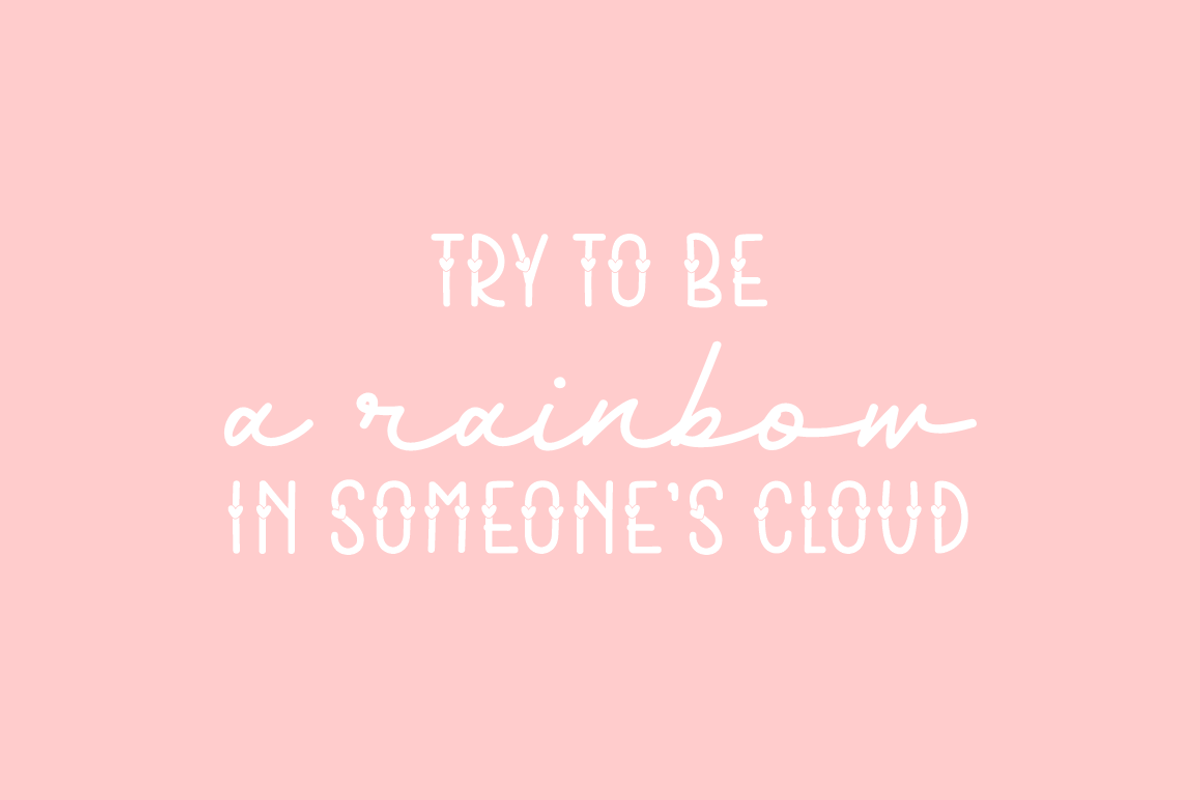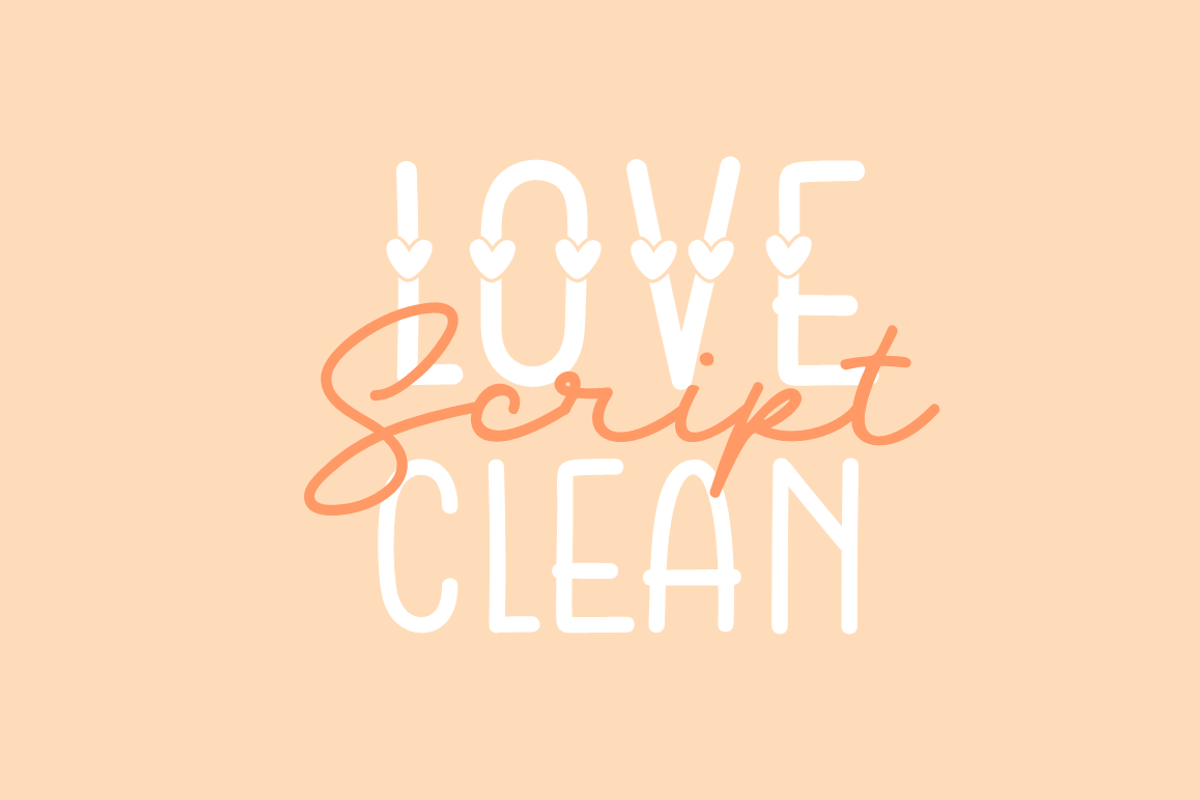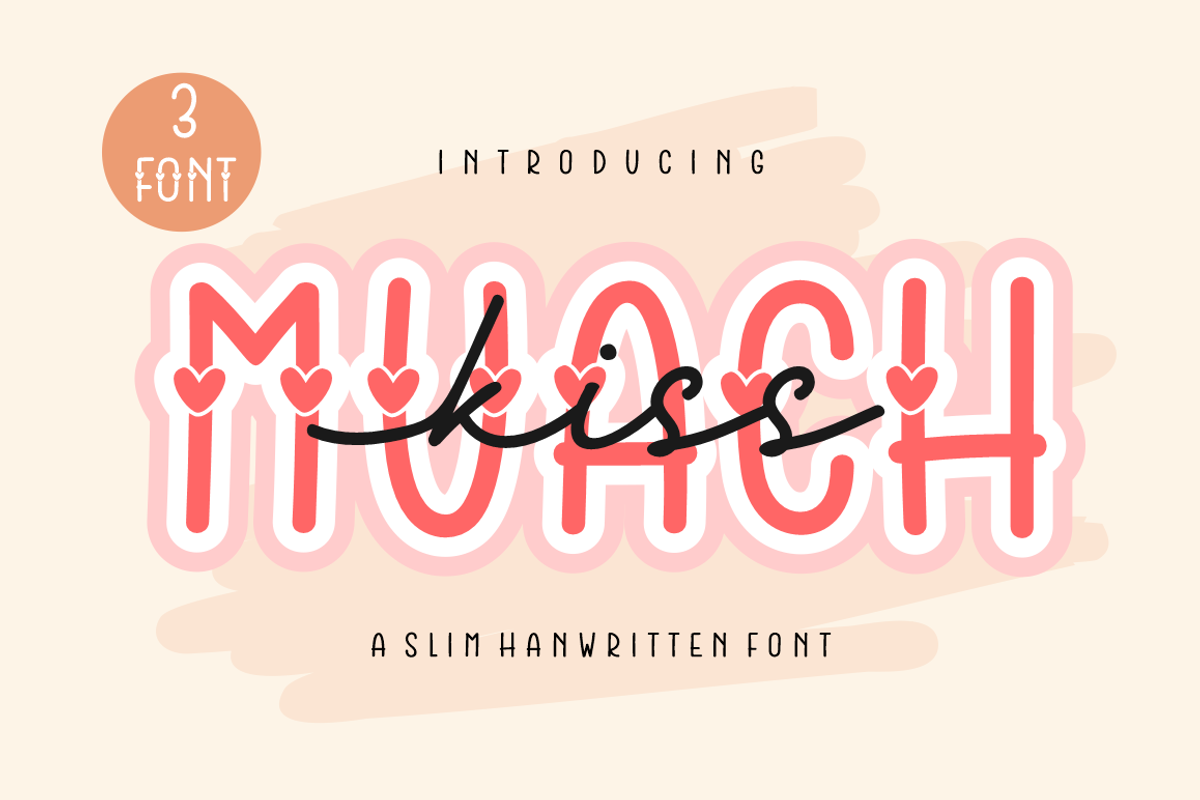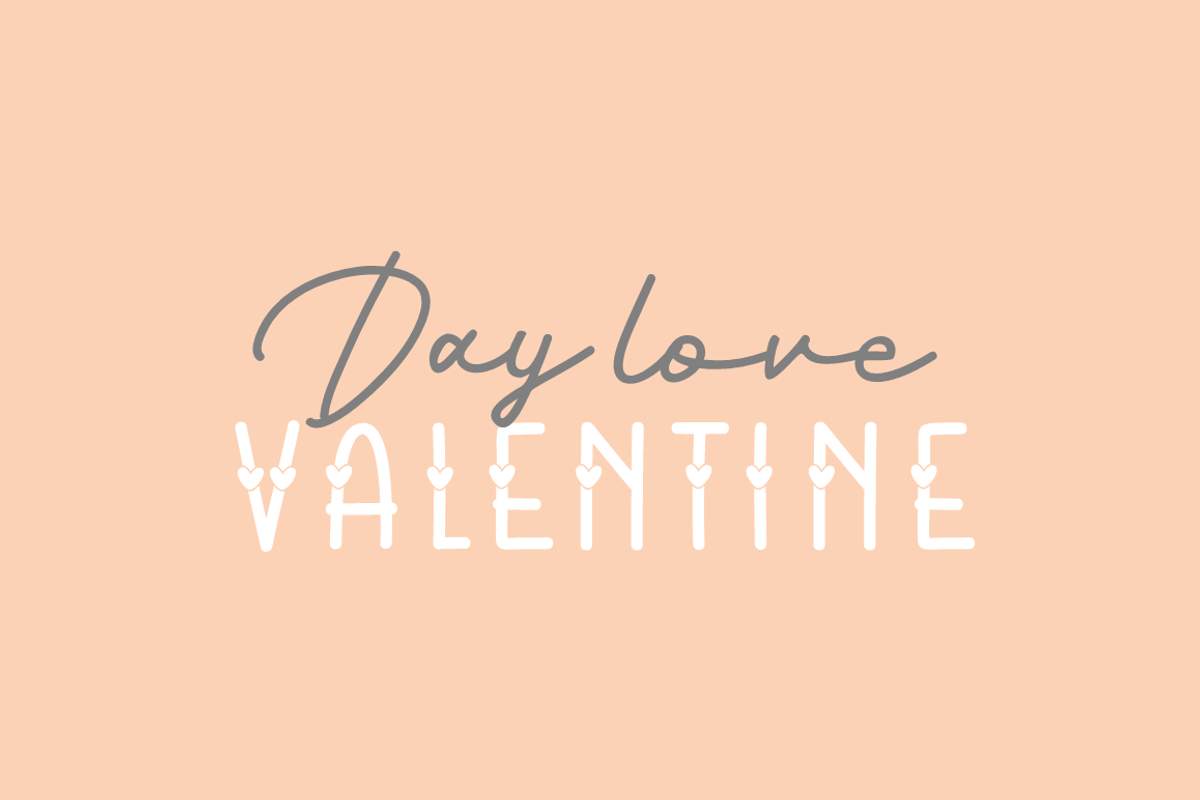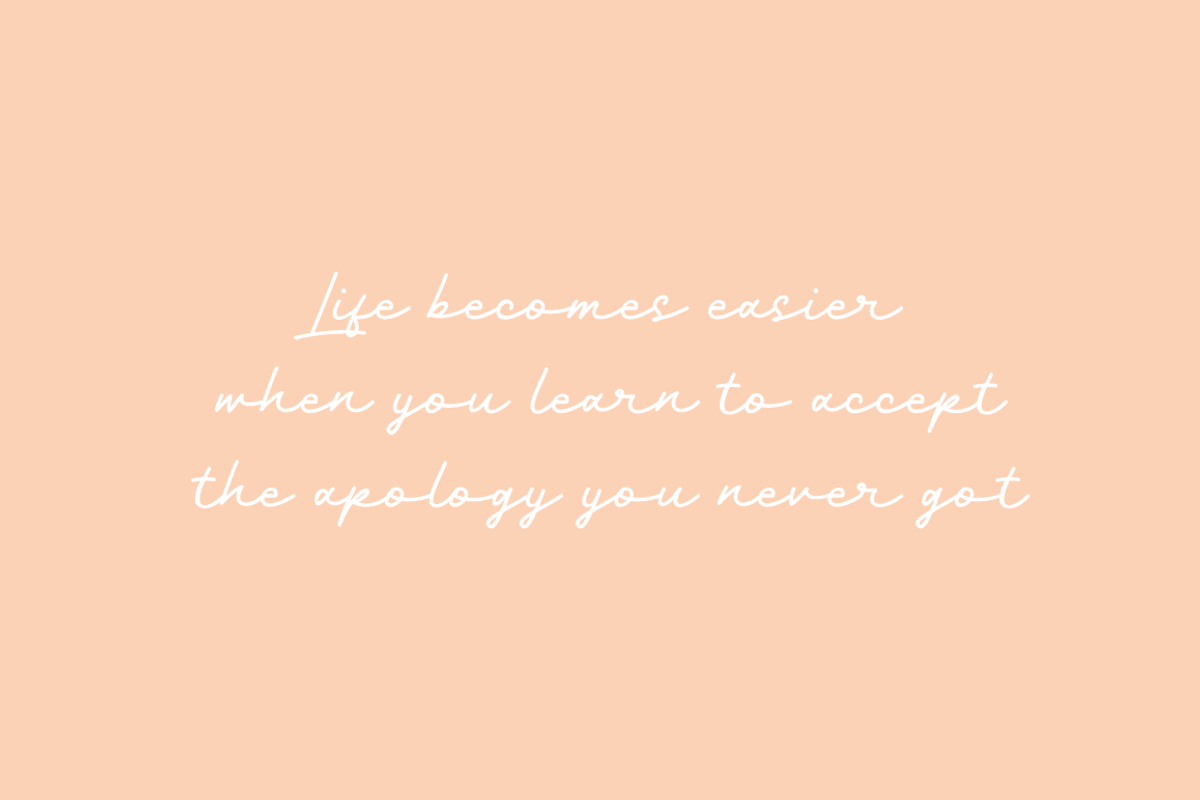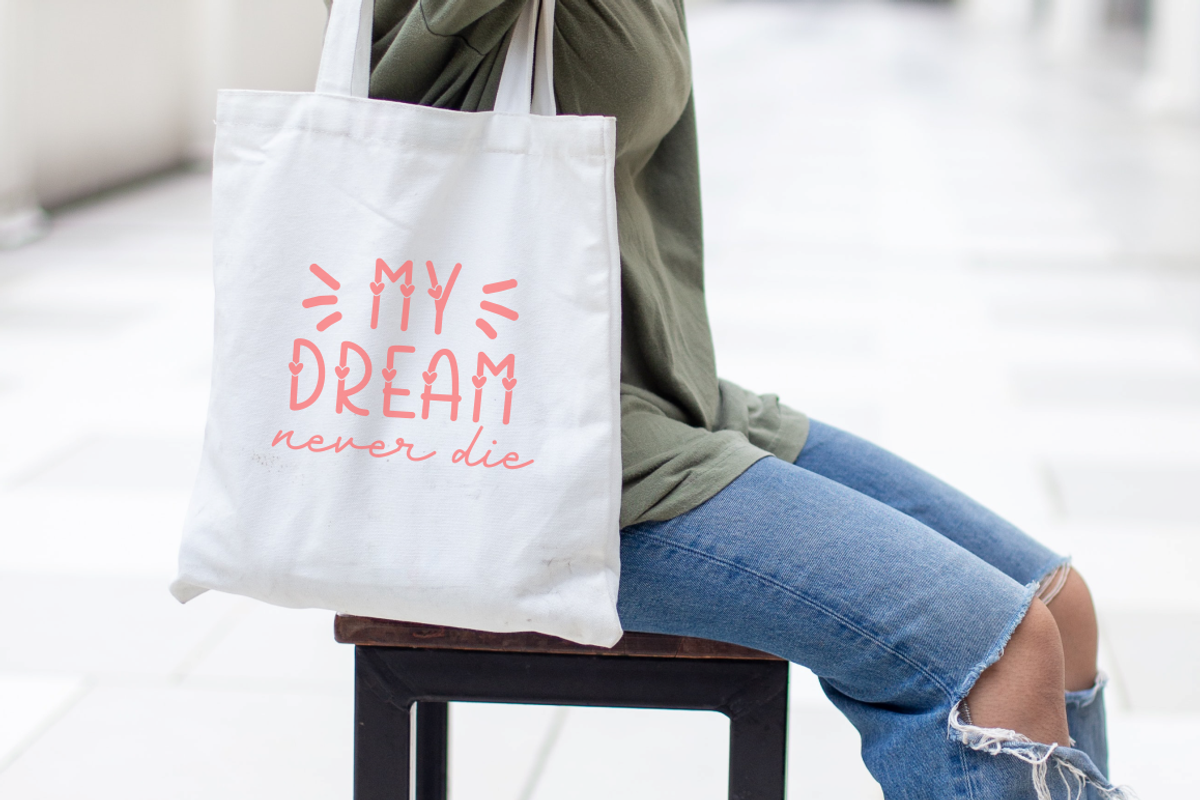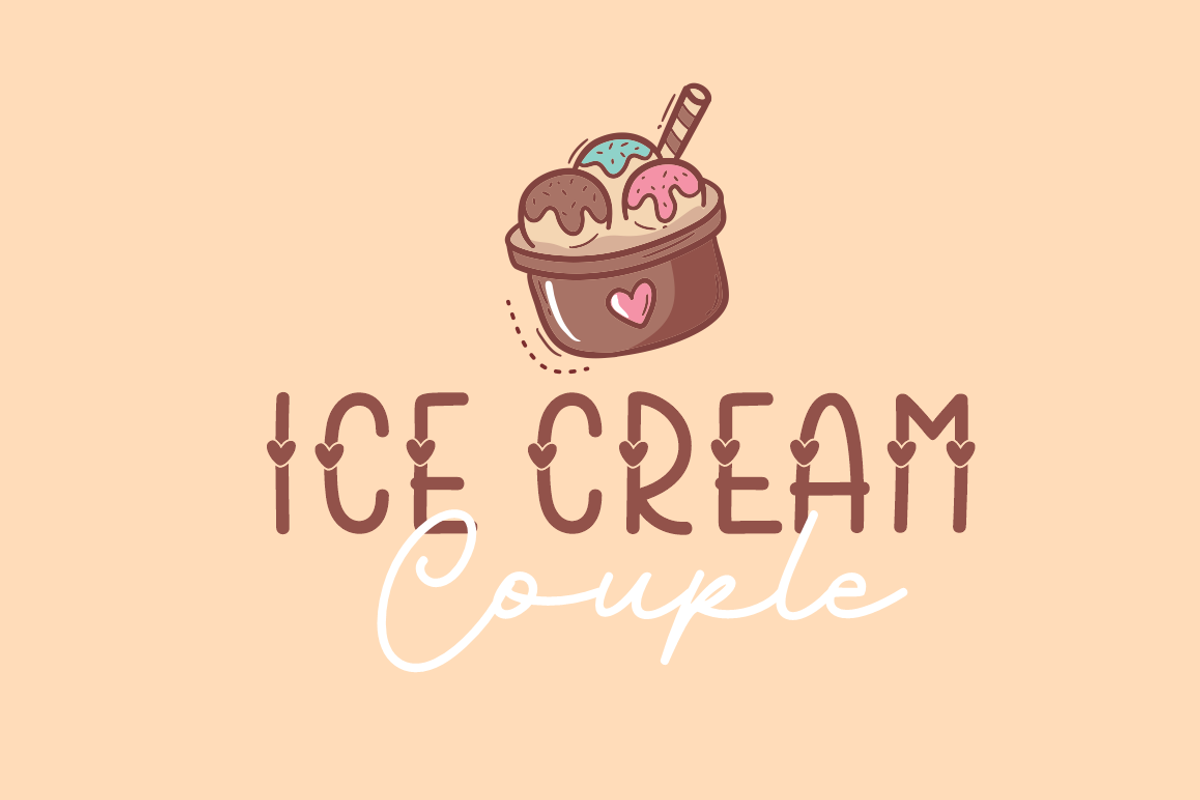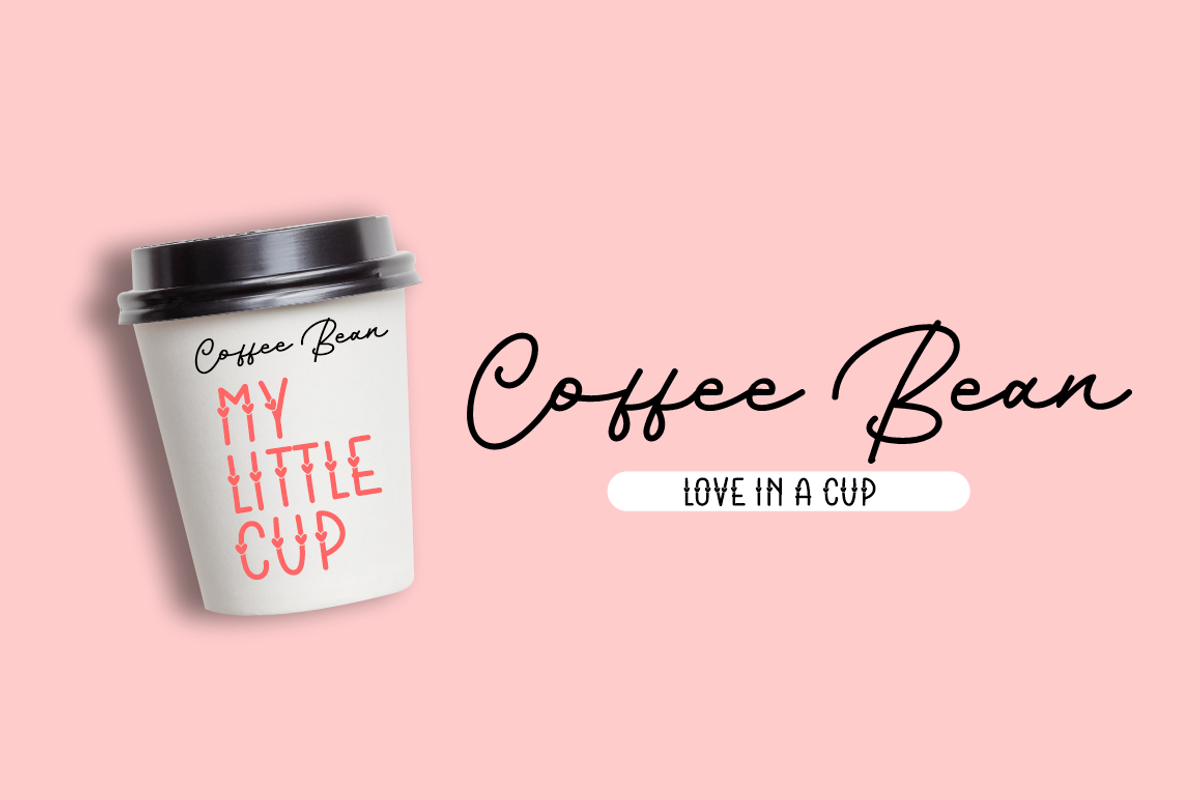
Kiss Muach | 3 font with love
kiss muach comes in a slim shape that makes it look cute and elegant, clean, comes in 3 weights, regular, love, script.